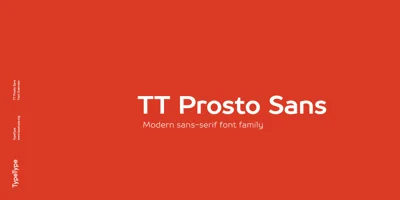
TT Prosto Sans Font
TT Prosto Sans Font is ideal for modern corporate branding, clean web interfaces, contemporary signage systems, tech startup materials, minimalist product packaging, professional presentations, digital app designs, and streamlined business communications requiring clarity and efficiency.
What makes TT Prosto Sans Font exciting is its straightforward simplicity that delivers maximum clarity through clean, unadorned letterforms without sacrificing character or sophistication. This versatile typeface features precise geometric construction with optimized proportions that create effortless readability and professional appeal, making it perfect for organizations seeking reliable, modern typography that communicates competence and trustworthiness across all platforms.
The TT Prosto Sans Font family includes multiple weights from thin to black, plus matching italics and comprehensive character sets that provide complete typographic solutions for complex branding systems and international communication projects requiring multilingual support and consistent performance.
This reliable typeface delivers exceptional versatility and professional functionality, making TT Prosto Sans Font an invaluable asset for contemporary design projects. The font's straightforward character makes it ideal for brands wanting to communicate efficiency and reliability in their corporate identity. Technology companies and professional service firms particularly appreciate its ability to maintain clarity and professionalism across all digital and print applications. The expertly engineered letterforms ensure optimal performance and consistent brand expression from business cards to large-scale environmental graphics. Whether you're developing comprehensive brand systems or creating user-friendly digital interfaces, this font provides the perfect combination of simplicity and sophistication. Creative professionals consistently choose this typeface for projects requiring that ideal balance of modern minimalism and functional excellence, making it essential for contemporary communications that prioritize both aesthetic appeal and practical usability in today's diverse media landscape.